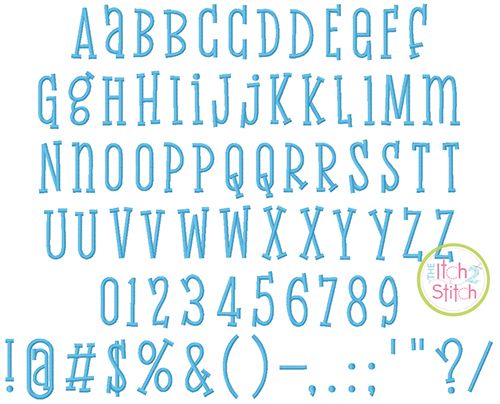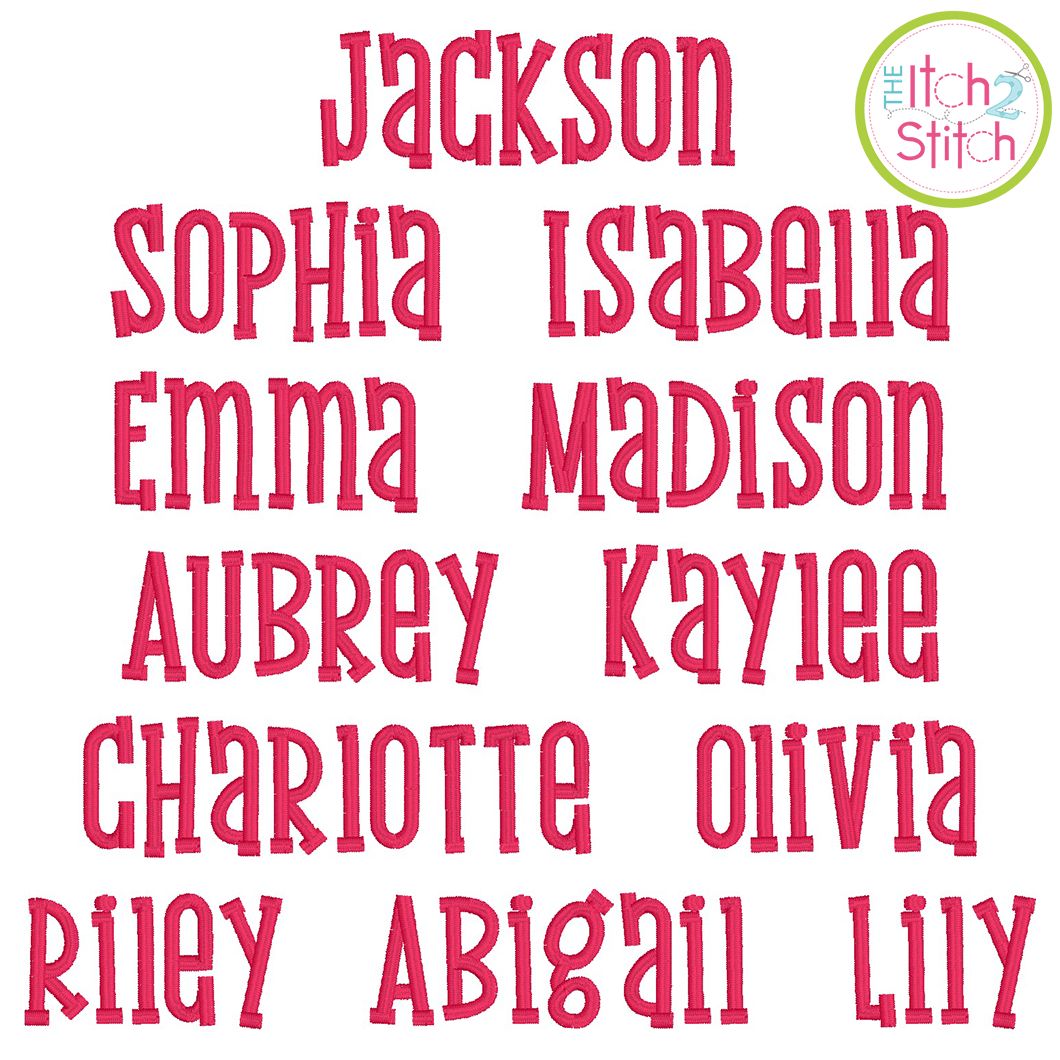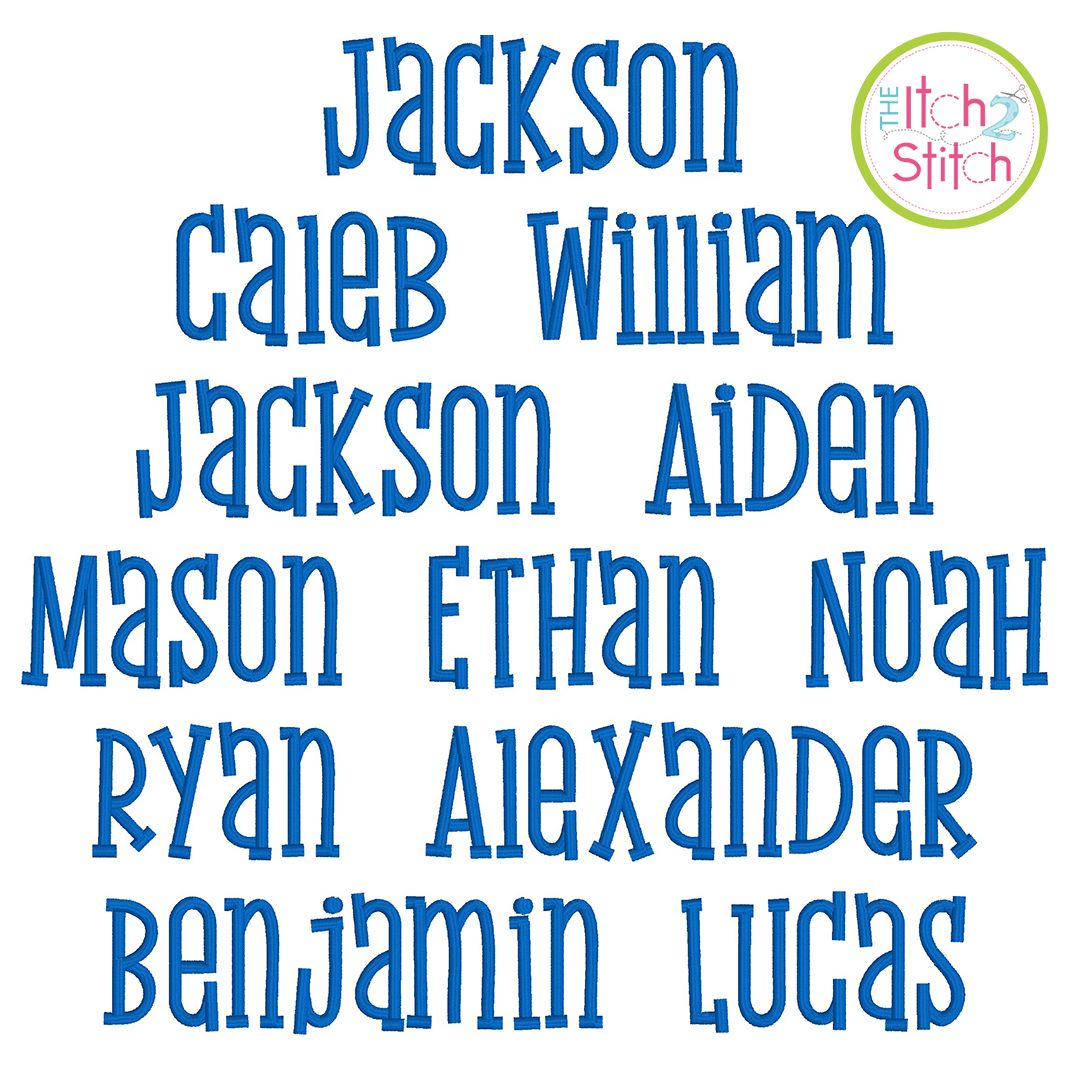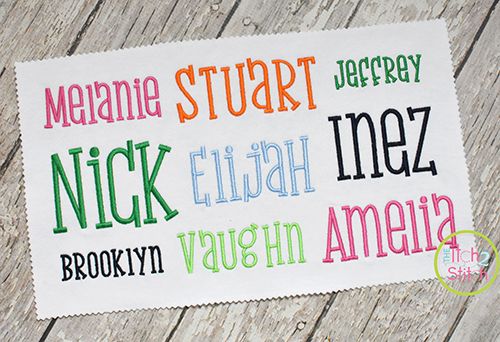
You will receive all Aa-Zz letters, numbers and partial punctuation (79 files) in seven sizes. The font sizes are based on the height of the capital E, then scaled appropriately in keeping with the original artwork. There are two versions of each letter, however only ten of the "lowercase" files look like a traditional lowercase letter, as pictured. Mix and match cases for a fun look! All individual letters/numbers in the 1" through 3.5" sizes fit in a 4x4 hoop. A larger hoop is required for the 4" size.